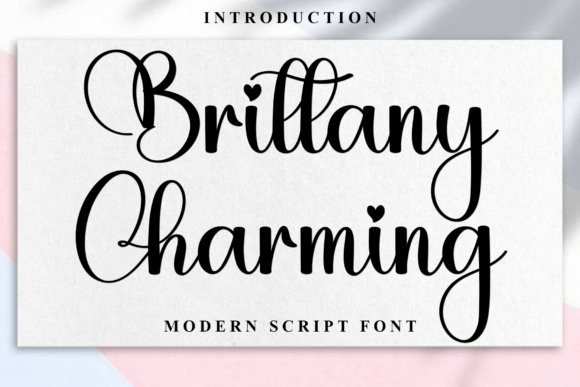
Unleash Your Creativity with the Perfect Font
You know that feeling when you’re brainstorming a new project, and the perfect font just pops into your mind? For designers, finding that elusive font can make all the difference between a good design and a great one. For me, it’s always about capturing the right tone and atmosphere with my font choices. That’s why I’m excited to share with you the Brittany Charming Font, a casual and creative typeface that exudes warmth and friendliness.
This delightful font is perfect for personal projects, invitations, and social media graphics where you want to convey a relaxed and approachable vibe. With its round, playful strokes and charming hand-drawn aesthetic, the Brittany Charming Font adds a unique touch to any design. Whether you’re a seasoned designer or just starting out, this font is a valuable addition to your toolkit.
Brittany Charming Font Key Features
- Font Family: Brittany Charming Font
- Font Size: 1000 glyphs
- Resolution: High-resolution fonts suitable for printing and web use
- Unique Characteristics: Elegant script, cursive, and handwritten font styles; ideal for wedding invitations, greeting cards, and other romantic designs
- Language Support: Latin-based languages, including English, Spanish, French, and many others
Brittany Charming Font Review
As a designer, I’ve had the chance to work with the Brittany Charming Font, and here’s my honest review.
- Delicate and elegant feel: The font has a beautiful, feminine touch that makes it perfect for projects that require a touch of sophistication.
- Wide range of languages: The font supports a wide range of languages, making it a great choice for international projects.
- High-quality glyphs: The font’s glyphs are well-crafted and detailed, giving it a professional look.
- Not suitable for bold or dramatic designs: The font’s delicate nature makes it less suitable for bold or dramatic designs, which may not showcase its best qualities.
- Limited customizability: The font’s design is quite fixed, making it less customizable than some other fonts.
The Brittany Charming Font is a beautiful, elegant font that shines in projects that require a touch of sophistication. While it may not be the best choice for bold or dramatic designs, its delicate nature and high-quality glyphs make it a great addition to any designer’s toolkit.
Some common use cases for the Brittany Charming Font include:
– Baby shower invitations and decorations
– Vintage-inspired designs and layouts
Remember to experiment with different font combinations and styles to get the most out of the Brittany Charming Font.
Alternatives to Brittany Charming Font
Carolyna Pro is a elegant script font that is ideal for invitations, wedding designs, and any other romantic project. It has a beautiful, flowing feel that is reminiscent of hand-painted lettering.
Compared to Brittany Charming Font, Carolyna Pro has a more modern and sophisticated look, making it suitable for a wider range of design projects.
Great Vibes is a elegant, cursive font that is perfect for creating a sense of luxury and sophistication. It is ideal for high-end branding, packaging, and advertising projects.
Compared to Brittany Charming Font, Great Vibes has a more refined and polished look, making it suitable for projects that require a high level of professionalism.
Alex Brush is a beautiful, handwritten font that is ideal for creative projects such as invitations, menus, and signage. It has a unique, hand-painted feel that adds a touch of personality to any design.
Compared to Brittany Charming Font, Alex Brush has a more whimsical and playful look, making it suitable for projects that require a more relaxed and casual tone.
Pacifico is a elegant, serif font that is perfect for creating a sense of warmth and sophistication. It is ideal for branding, packaging, and advertising projects that require a relaxed and friendly tone.
Compared to Brittany Charming Font, Pacifico has a more laid-back and casual look, making it suitable for projects that require a more approachable and down-to-earth tone.